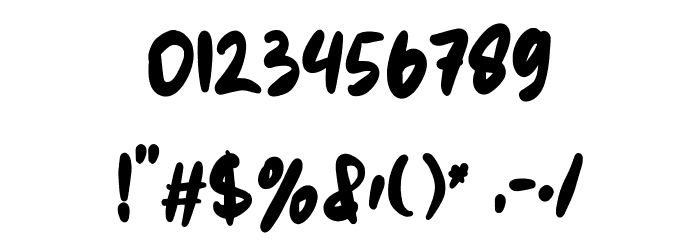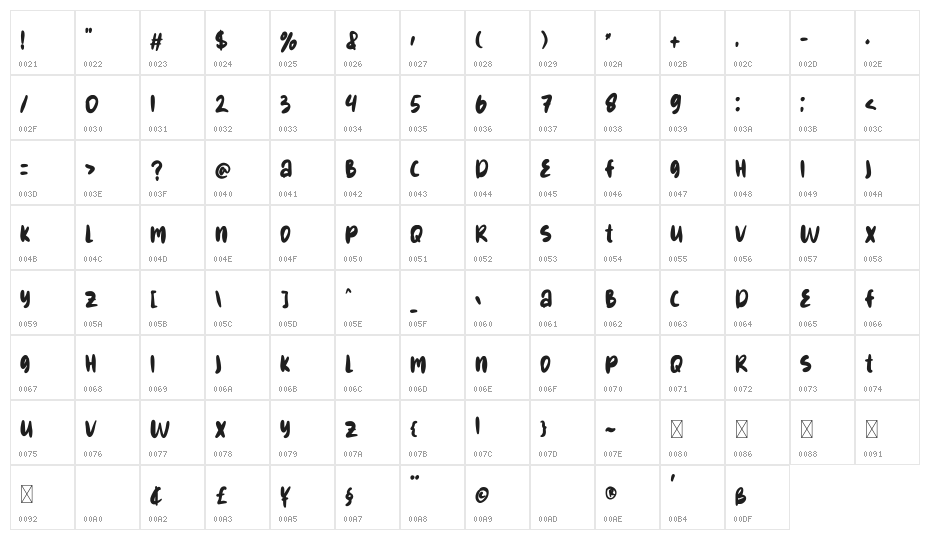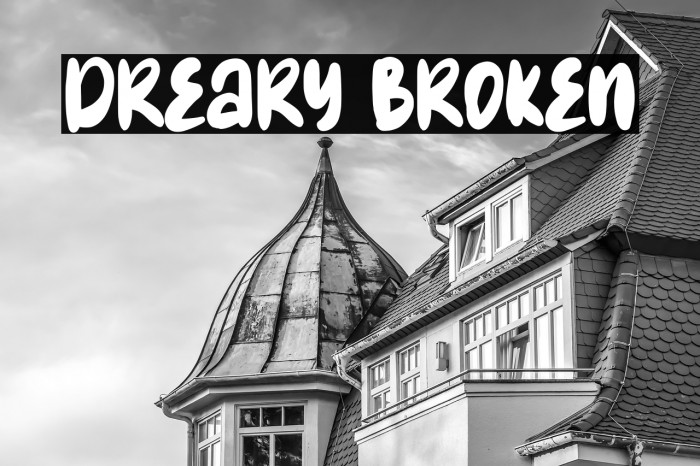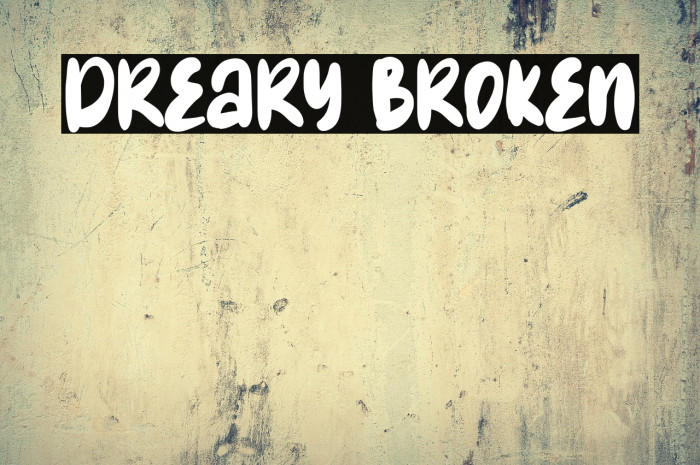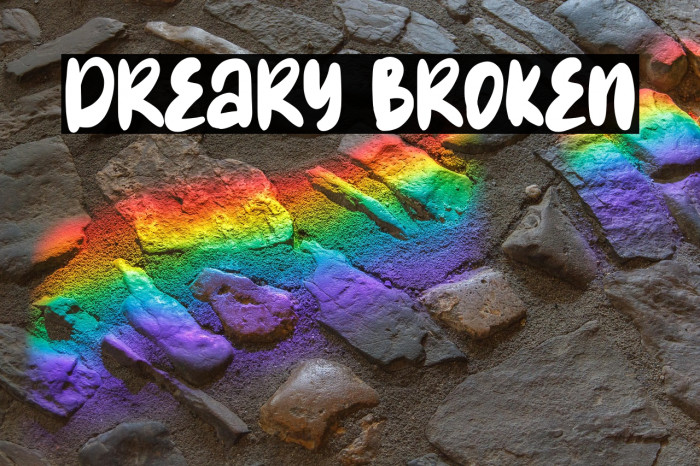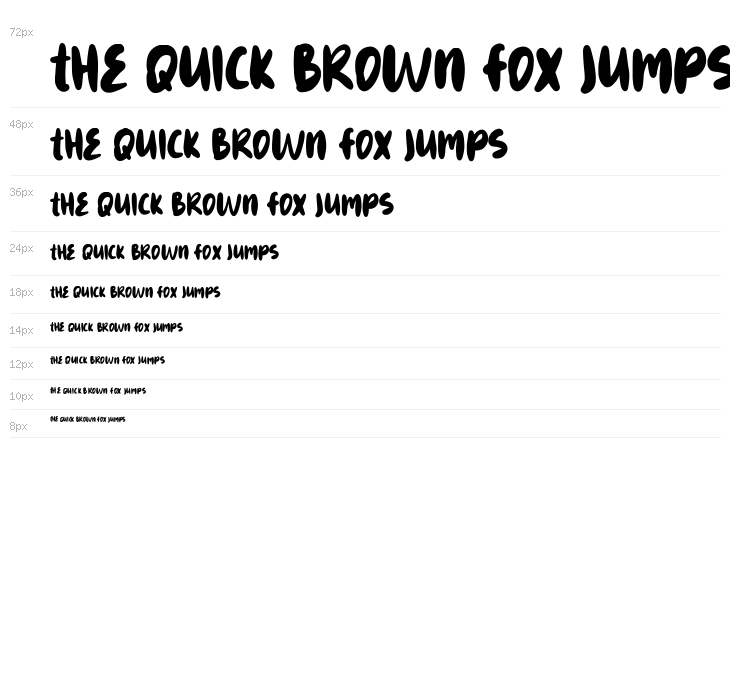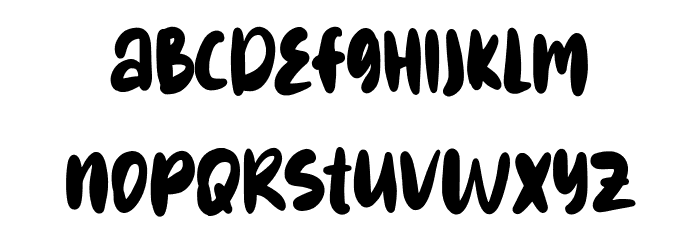
Dreary Broken Font
This font features a bold and playful style with a handwritten appearance. The characters are rounded and slightly irregular, giving it a casual and friendly feel. The strokes are thick and consistent, providing a strong visual impact. The uppercase and lowercase letters maintain a cohesive look, while the numbers and special characters blend seamlessly into the overall design. This font is versatile and can be used to convey a sense of fun and approachability.
| Proposed Projects | Ideal for children's books, playful branding, greeting cards, and social media graphics. |